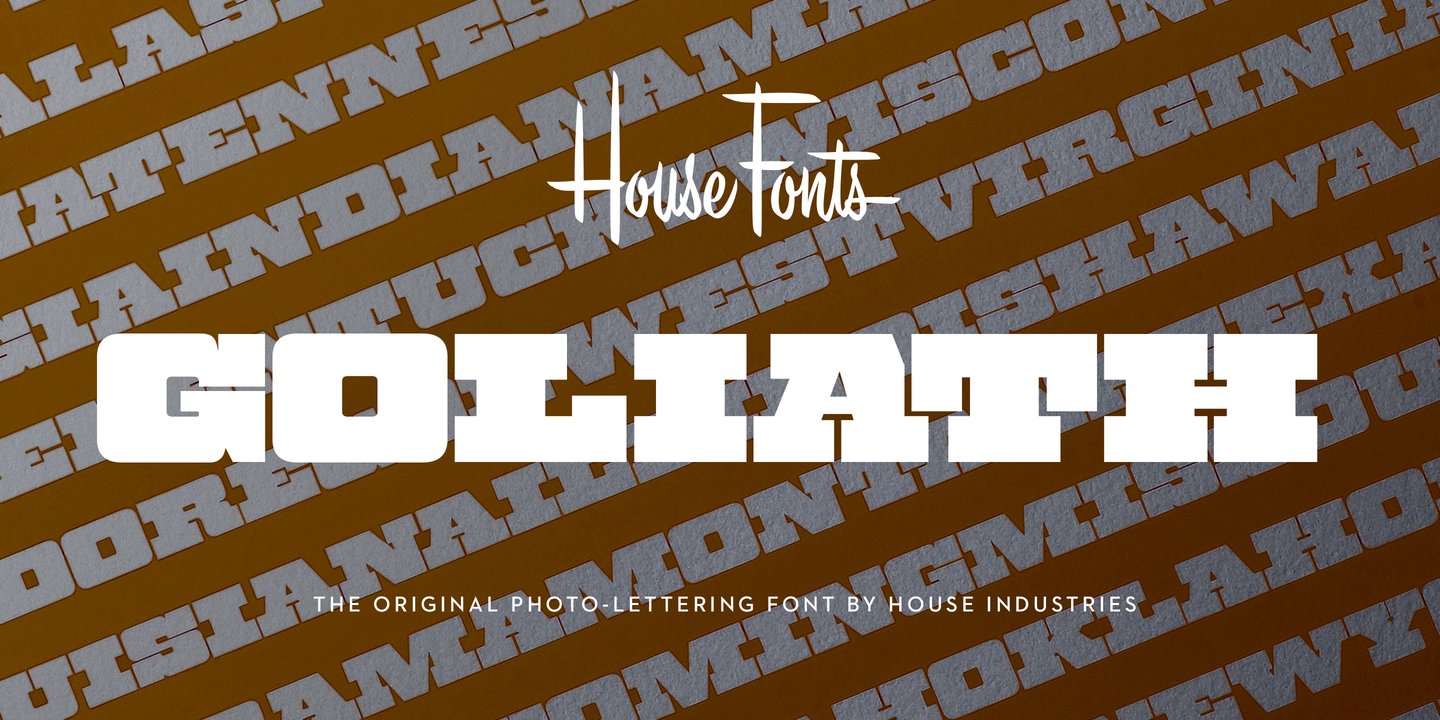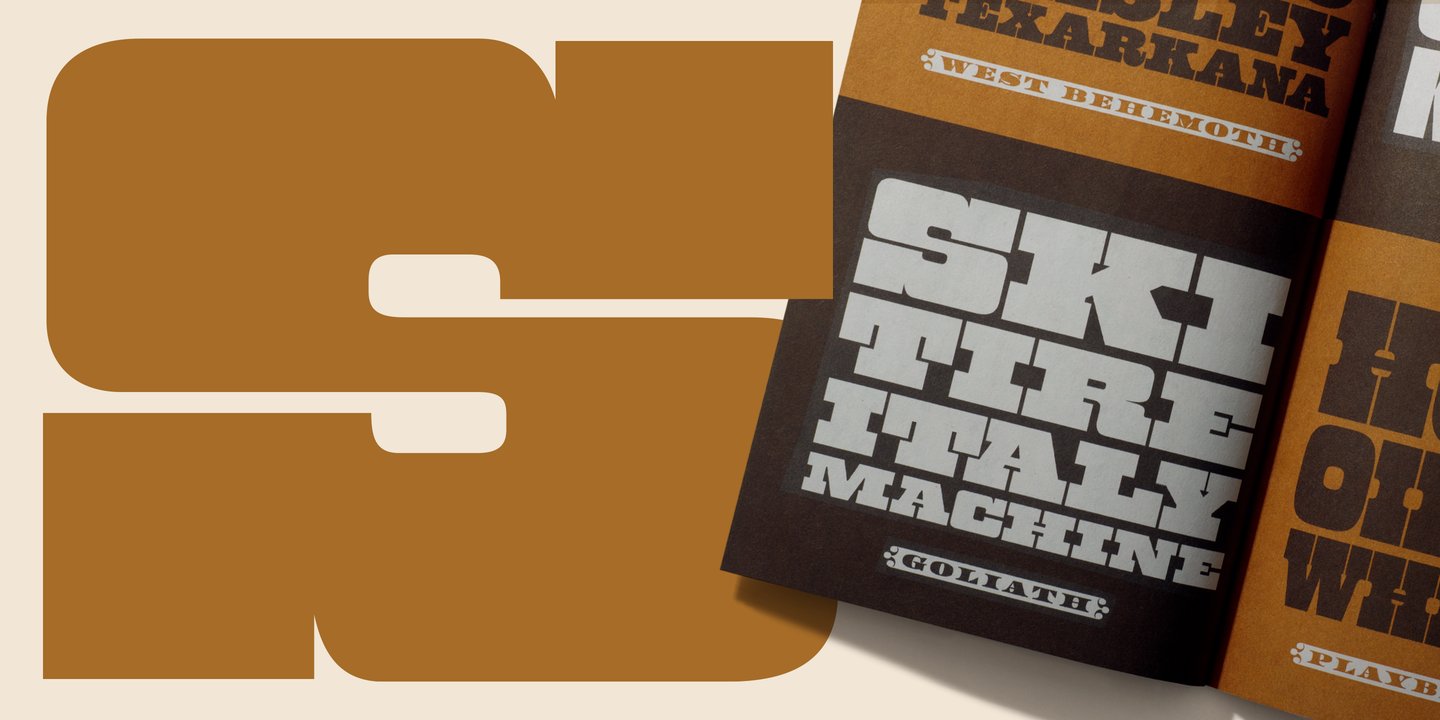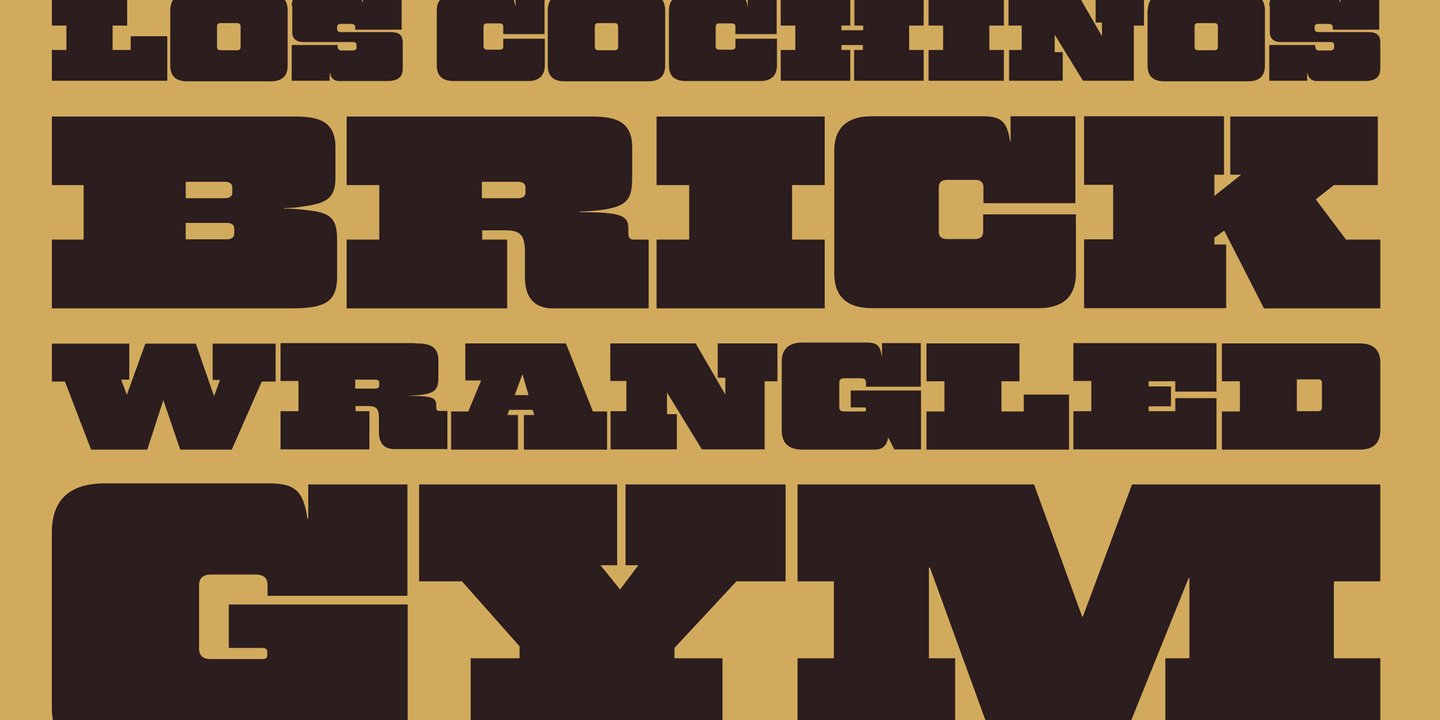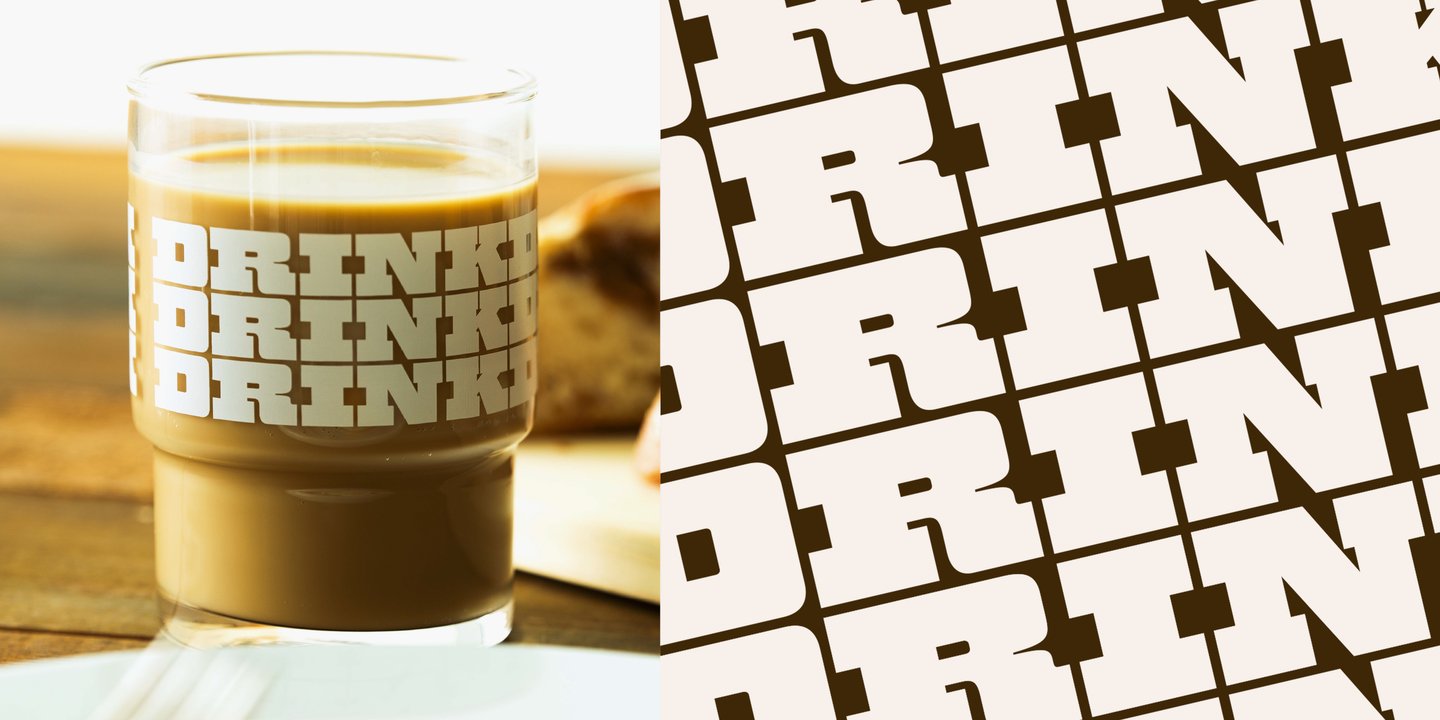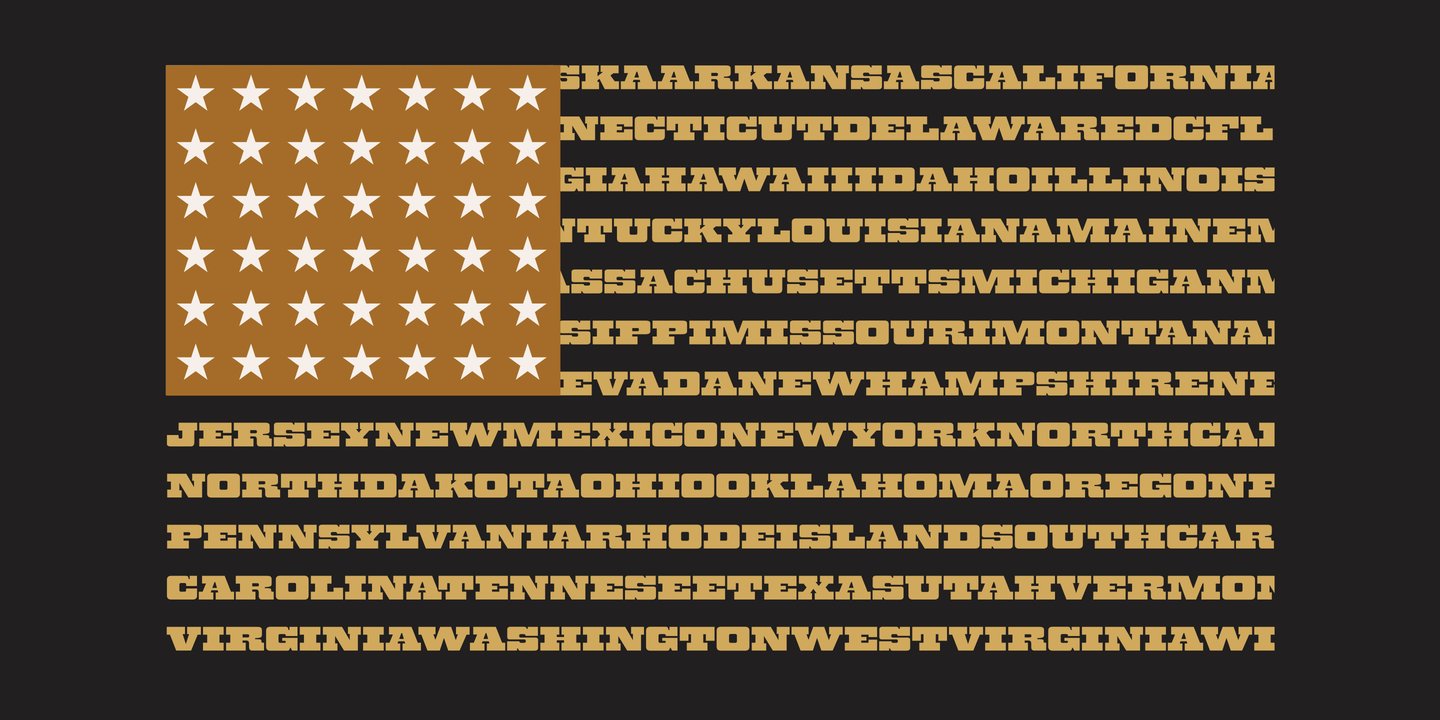
About the Plinc Goliath Font
About Plinc Goliath Font Family Vincent Pacella was a true giant of hand-lettering and typeface design. Of the dozens of styles he designed for Photo-Lettering and International Typeface Corporation, his dominant Goliath towers above the rest. The font is perhaps best known from Herb Lubalin’s American flag that the design legend created for Print magazine’s 40th anniversary cover. Pacella takes “slab” serif to heart with this colossally-proportioned font, using brawny stroke endings and minimal curves to create a powerful figure for maximum visual impact. Take advantage of Goliath’s superior stature to make viewers take notice in industrial settings, sports branding, and oversized outdoor media applications. For comparatively modest musings in accompanying running text, consider partnering it with a comparatively spartan slab serif like Municipal.
Or, team up Goliath with a faceted fellow heavyweight like United Sans. Originally drawn in 1970, Goliath was digitized by Ben Kiel with Adam Cruz in 2011. GOLIATH CREDITS: Typeface Design: Vincent PacellaTypeface Digitization: Ben Kiel, Adam CruzTypeface Production: Ben Kiel Like all good subversives, House Industries hides in plain sight while amplifying the look, feel and style of the world’s most interesting brands, products and people. Based in Delaware, visually influencing the world. Designers: Vincent PacellaPublisher: House IndustriesFoundry: House IndustriesDesign Owner: House IndustriesMyFonts debut: Sep 30, 2021 Plinc Goliath